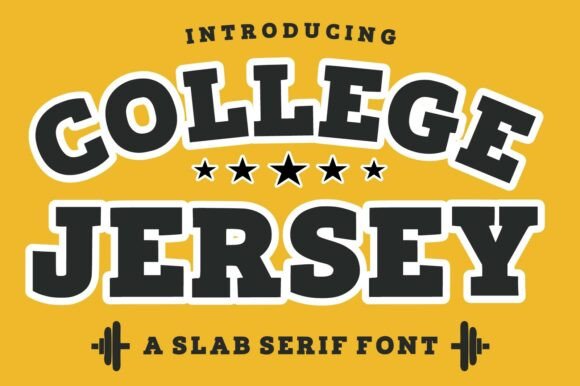
College Jersey Font: Bold Slab Serif Style Guide
Introduction to the College Jersey Free Download
When searching for typography that captures the spirit of American athletics and retro academia, designers often seek a College Jersey free download to anchor their projects. This distinctive typeface is more than just a novelty; it is a robust slab serif inspired by classic varsity lettering and collegiate sports aesthetics. The font features thick, blocky letterforms with strong serifs that convey authority, tradition, and athletic prowess. Unlike standard geometric sans-serifs often used in sports design, this typeface brings a textured, historical weight that feels authentic rather than manufactured.
For designers looking to secure a College Jersey font download, understanding its place in the typographic hierarchy is essential. It sits comfortably within the slab serif category but distinguishes itself through specific stylistic choices reminiscent of mid-20th-century university merchandise. Whether you are designing team apparel or a vintage-themed poster, the ability to download College Jersey font free for personal testing allows you to evaluate its unique character before committing to a full project. Its bold presence ensures legibility at large sizes while maintaining a nostalgic charm that few other display fonts can replicate.
Design Characteristics and Visual Weight
The visual personality of this typeface is defined by its unapologetic heaviness and structured geometry. As a premium Slab Serif font alternative available in various repositories, it prioritizes impact over subtlety. The strokes are uniformly thick, creating a dense texture on the page that commands attention. This monolinear approach mimics the physical constraints of traditional chenille patches and felt lettering, translating tactile manufacturing limitations into digital vector precision.
Retro Letterforms and Athletic Heritage
The letterforms exhibit a distinct retro quality that separates them from modern athletic typefaces. While contemporary sports fonts often lean toward sharp angles and futuristic italics, this design embraces upright stability. The serifs are squared and substantial, providing a solid foundation for each character. This makes it an excellent choice when comparing College Jersey vs similar font options like Varsity or Freshman, as it offers a more refined, less cartoonish interpretation of the genre.
Spacing and Kerning Considerations
Due to its inherent width, proper spacing is critical. The default kerning is generally optimized for all-caps settings, which is the intended use case for this style. However, designers should manually adjust tracking when using the font for headlines to ensure the negative space between letters matches the visual density of the strokes themselves. This attention to detail elevates the typeface from a generic template to a professional Fonts font suitable for high-end branding work.
Best Uses for College Jersey in Modern Design
Versatility is key for any display typeface, and this font excels across multiple mediums. Identifying the best Slab Serif fonts for use case specificity helps designers avoid mismatched aesthetics. Below are primary applications where this typeface performs exceptionally well.
College Jersey for Logo Design and Branding
Using College Jersey for logo design provides instant recognition for organizations wanting to project heritage and strength. It is particularly effective for esports teams, campus organizations, and lifestyle brands targeting a demographic that values vintage Americana. When applied to College Jersey for branding initiatives, the font serves as a powerful header element that pairs seamlessly with minimalist secondary logos, creating a balanced visual identity system.
College Jersey for Posters and Social Media
In the realm of digital marketing, readability is paramount. College Jersey for posters/social media/packaging ensures that headlines remain crisp even when scaled down for mobile screens. The bold weight cuts through busy backgrounds and photographic overlays, making it ideal for event announcements, sale graphics, and YouTube thumbnails. Its strong silhouette maintains integrity across different aspect ratios and resolutions.
College Jersey for Wedding Invitations and Typography
Surprisingly, this athletic typeface has found a niche in matrimonial stationery. College Jersey for wedding invitations/cards/typography works best when couples want to break away from traditional scripts and embrace a bold, non-traditional aesthetic. It is often used for the couple’s names or the date on save-the-dates, providing a striking contrast against delicate floral illustrations or fine linen textures. This juxtaposition creates a memorable, personalized invitation suite.
Font Pairing Strategies and Combinations
A common question among designers is what fonts pair well with College Jersey given its dominant visual weight. Successful College Jersey font pairing relies on contrast; because the primary font is so heavy, supporting typefaces should be lighter and cleaner.